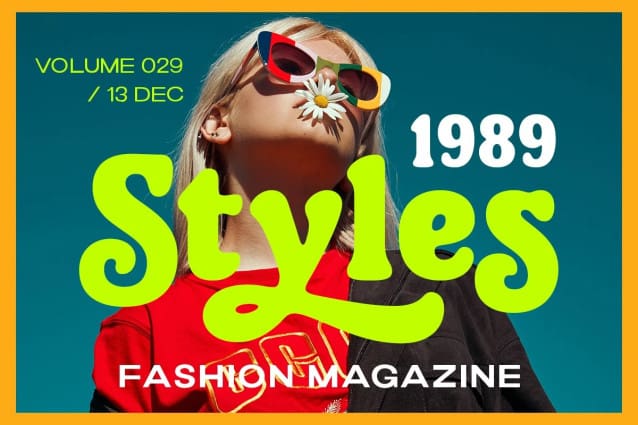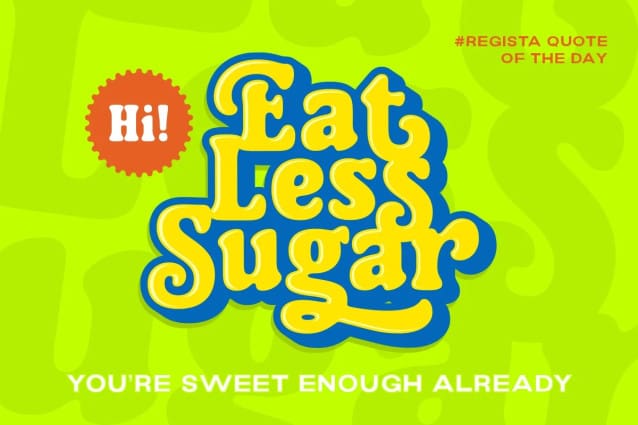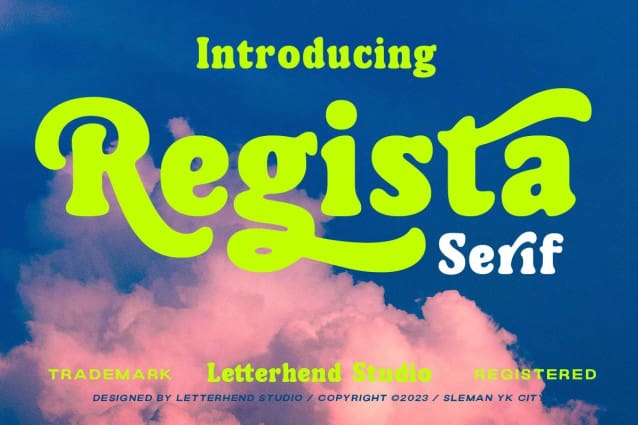
Regista Font
Regista Font – A bold serif font. This font is one of our best product ever, carefully made to make sure its quality. This font perfectly made to be applied especially in logo, and the other various formal forms such as invitations, labels, logos, magazines, books, greeting / wedding cards, packaging, fashion, make up, stationery, novels, labels or any type of advertising purpose.